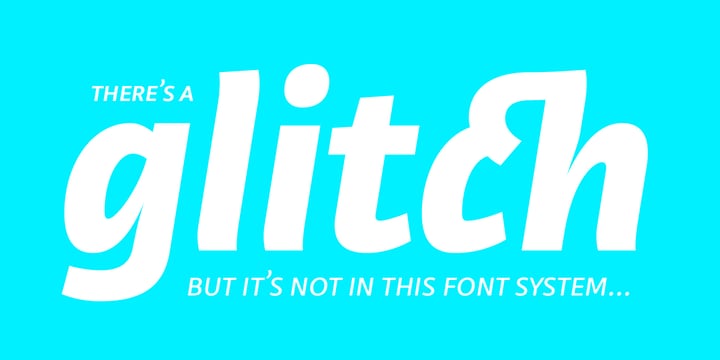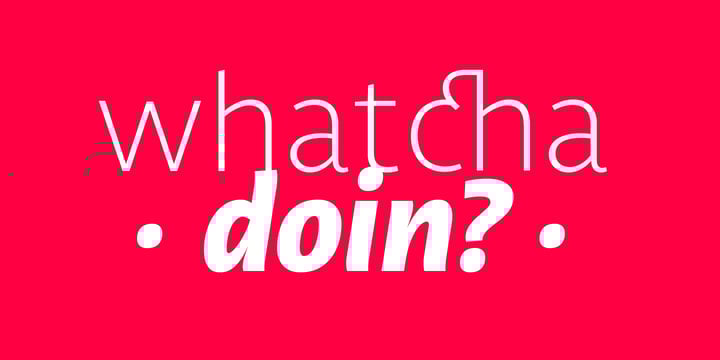
Libertad
por TipoType
La familia tipográfica Libertad fue diseñada por Fernando Díaz, Tipotype Team y publicada por TipoType. Libertad contiene 14 estilos.
Design can do without images, but not without typefaces. Libertad is a sans-serif typeface that mixes humanist and grotesk models. It’s most interesting feature is the combination of balanced regulars with dynamic italics, which makes it a very versatile font for different uses. This typeface follows the Luc(as) de Groot’s Interpolation Theory, that’s why it has seven specially-calculated weights plus their matching italics, from thin to extra-bold. This allows it to be useful in big headlines and also small texts. It has more than 800 characters per weight and support for more than 70 languages. WARNING: This does not work with most Office suites; you only have access to R/I/B/BI. Credits: Photos by Lu-Lee.com - Web template by EleganThemes.com